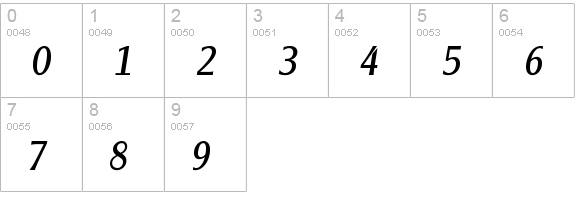
Cleargothic-RegularIta Font Details
Introducing Cleargothic-RegularIta font, a sleek and modern typeface that combines elegance with readability. This italic version of the Cleargothic Regular font adds a touch of style and sophistication to any design project. The clean lines and subtle curves make it perfect for headlines, quotes, and other display purposes. What makes Cleargothic-RegularIta font even more appealing is that it is completely free to download. You can easily access this versatile typeface at FontsMarket.com, where you can explore a wide range of other fonts as well. Whether you're working on a website, branding materials, or any other creative project, Cleargothic-RegularIta font is sure to elevate your design with its unique charm and professional look. Download it now and see the difference it can make in your work!